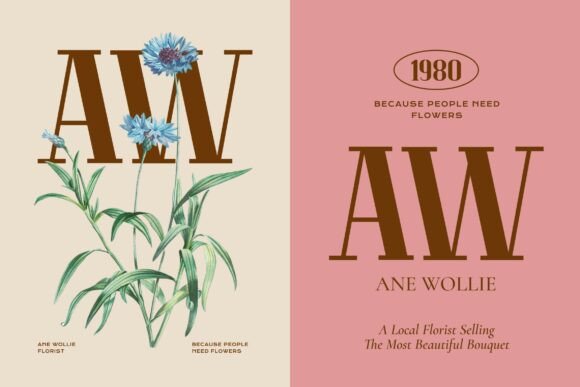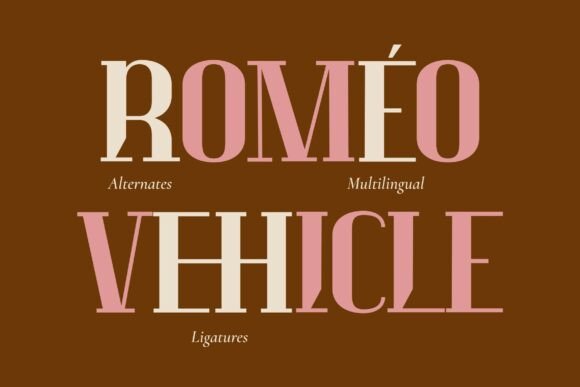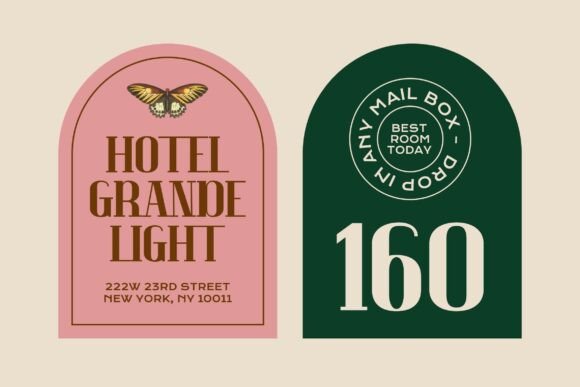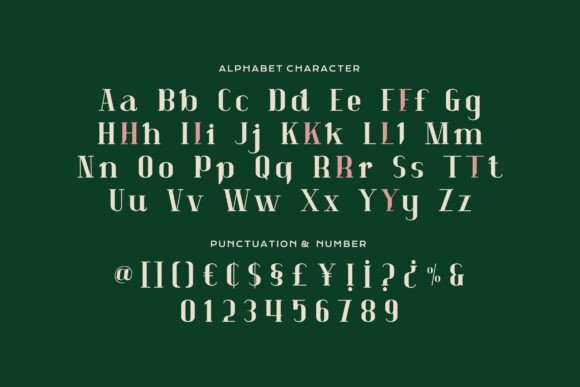
Introduction to Luck Moniec Font
Have you ever been working on a creative project, pouring your heart and soul into it, only to be stuck on the perfect font to convey the essence of your design? The search for the perfect typography can be a daunting task, especially when you’re looking for a high-quality font that exudes luxury and sophistication.
Enter Luck Moniec Font, a stunning serif display font that effortlessly blends the classical Roman structure with modern aesthetic elements, creating a visual harmony that’s both timeless and contemporary. This versatile font is a treasure trove of creative possibilities, making it an invaluable resource for designers seeking to elevate their designs to the next level.
With its PUA encoded features, designers can easily access all the glyphs, swashes, and alternate characters, allowing for seamless and effortless design work. Whether you’re working on a luxury branding project, creating editorial headlines, or designing romantic floristry posters, Luck Moniec Font is an ideal choice that’s sure to impress.
Key Features of Luck Moniec Font
- High-quality font designed for creative projects, suitable for use in graphic design, digital art, and other design resources.
- Unique characteristics include a modern, elegant design and a wide range of customization options, making it an ideal choice for designers seeking a high-quality, versatile font.
- Perfect for use in a variety of creative projects, including logos, branding, typography, and more.
Honest Review: Luck Moniec Font
I recently stumbled upon the Luck Moniec Font, a high-quality design resource that caught my attention. As a designer, I appreciate free downloads that can elevate my creative projects. The Luck Moniec Font offers a unique, modern aesthetic that would be perfect for a variety of design applications.
- ✨ Clean and minimalist design aesthetic
- ✨ Highly versatile and suitable for various creative projects
- ⚠️ Limited character set, which may not be suitable for extensive typography-based projects
- ⚠️ Some users may find the font’s style too generic or unoriginal
Overall, I’m impressed with the Luck Moniec Font’s potential to enhance my creative projects. While it may not be perfect, its high quality, free download, and transparent background make it a valuable design resource. I would recommend it to designers looking for a modern, clean font to incorporate into their work.
To get the most out of Luck Moniec Font, experiment with different font sizes, colors, and combinations. This font is highly versatile and can be used in a variety of creative projects, from business cards to social media graphics.
Luck Moniec Font is commonly used in branding, marketing materials, and creative projects that require a unique and stylish touch. Its high-quality design and transparent background make it an ideal choice for designers and non-designers alike.